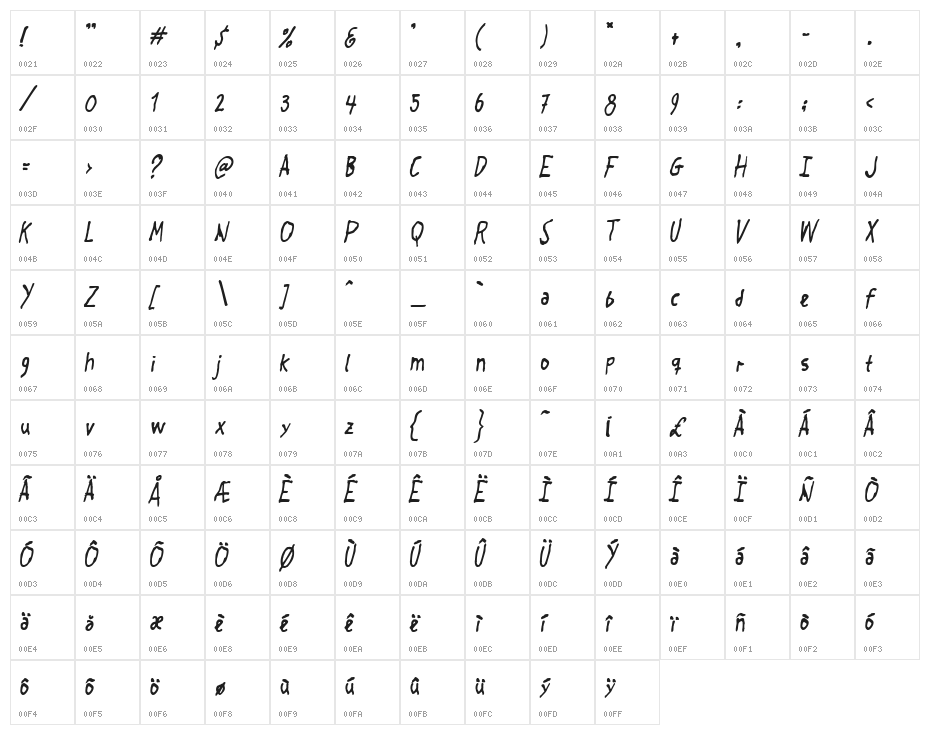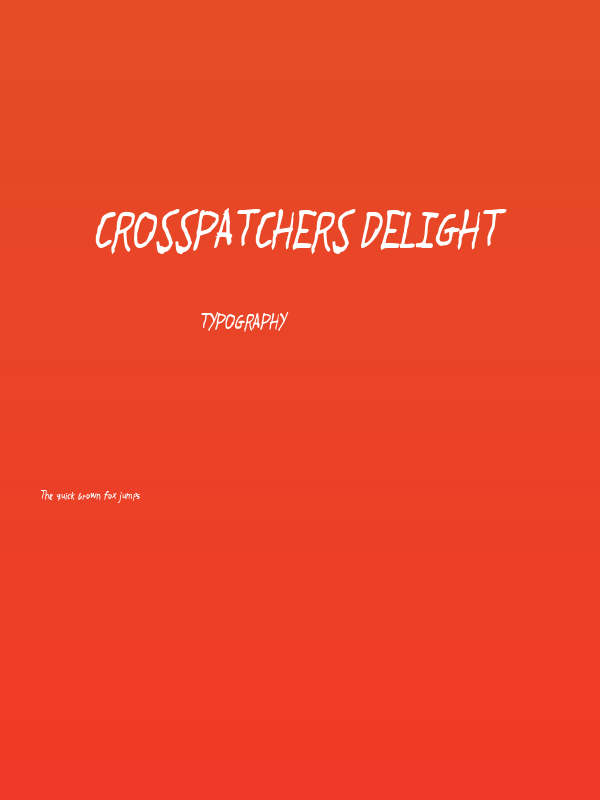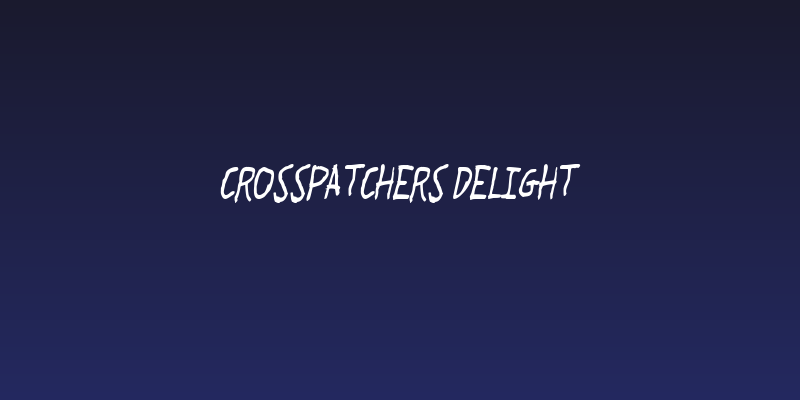
Crosspatchers delight Font
Crosspatchers delight Description
This font features a playful, handwritten style with a slightly irregular and organic appearance. The letters are bold and have a casual, informal feel, reminiscent of a marker or brush pen. The uppercase and lowercase letters maintain a consistent style, with some variation in stroke thickness that adds to its charm. The numerals and special characters are equally expressive, making the font versatile for creative projects. Its unique character makes it suitable for designs that require a personal touch or a sense of spontaneity.
| Proposed Projects | Ideal for greeting cards, children's books, casual branding, and creative posters. |